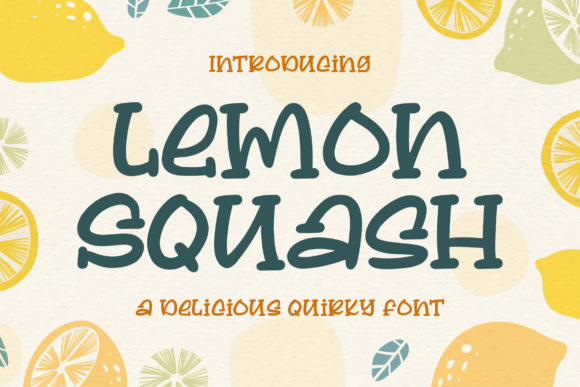
Step into a world of charm and creativity with Lemon Squash Font, the ultimate display font that captures the essence of fun, quirkiness, and authenticity. Prepare to be mesmerized as this enchanting font transforms your creative visions into captivating masterpieces.
With its lively and playful strokes, Lemon Squash Font exudes an energy that's simply irresistible. Its carefully crafted curves and whimsical details dance across the page, adding a touch of magic to every word. Whether you're designing invitations, creating social media posts, or crafting personalized gifts, Lemon Squash Font is your perfect companion.
Born from the creative minds at Blankids Studio, Lemon Squash Font is a true gem that embodies the spirit of individuality. Its unique style is guaranteed to make your projects stand out from the crowd, leaving a lasting impression on all who encounter them.
Unleash your imagination and let Lemon Squash Font take you on a journey of creativity. Its versatility extends beyond the digital realm, making it the perfect choice for DIY projects as well. Add a touch of whimsy to your home décor, create one-of-a-kind stationery, or design custom clothing that reflects your playful personality.
With Lemon Squash Font, the possibilities are endless. Embrace the joy of self-expression and let your creativity soar. Its captivating charm will elevate your projects to new heights, leaving you with a sense of satisfaction and accomplishment.